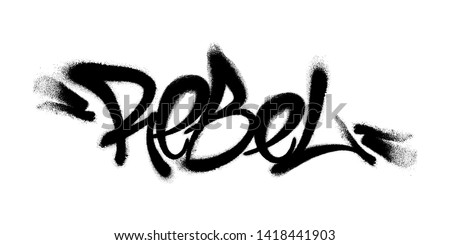
Free Font Graffiti Raseone | Premium Fonts
Strokes graffiti font family.
Font graffiti raseone. Fresh graffiti handstyle tagging presented in a rough paintbrush style. Free fonts for commercial use new fresh fonts most popular fonts alphabetic fonts largest font families trending fonts home tags graffiti hello you seem to have javascript turned off. More about this family. This is the free version of our wildbasics wildstyle graffiti typeface.
Burner graffiti font family. The 4 style in this layered type system can be stacked for combined outline fill and detail effects. Fresh paint graffiti font family. Glyphs from the fill outline fade detail styles layer combine in endless combinations to create complex burners that are consistent legible.
Characters can be mixed seamlessly with those of the main wildstyle font to add more variety. The descent family is a unique graffiti style layered type system consisting of a contextual style a classic style each with a base fill version an outline version. The burner font family is a layered type system of 155 wildstyle graffiti letters numbers symbols flourishes in each of 5 styles. Street artist graffiti font family.
Wild basics free graffiti font family. Raseone contains 5 styles and family package options. This font is an compatible with our full wildstyle font family. 2 unique graffiti alphabets numbers punctuation symbols arrows flourishes are all included.
Raseone was designed by matthew napolitano and published by graffiti fonts. Each of the 5 styles. This reverse italic graffiti script offers 191 characters in each of 4 styles. Created in 1999 raseone was one of the first graffiti style fonts ever created.
The graffiti fonts collection original digital typefaces designed by raseone custom graffiti collection for thqs homefront murals canvases artwork created in spray paint. Original fill outline fat 3d fade contains 238 characters. The raseone family was one our first typefaces. This font includes 174 characters letters numbers symbols punctuation streaks splats underlines more.
This family of fonts was built to emulate fast strokes with a wide paint brush or chisel tip marker to retain a realistic look even at very large sizes with a minimal amount of paths compared to many fonts with this level of detail. Regular streak drip outline styles are included in the set. Based on a signature category of wildstyles by graffiti fonts lead designer raseone this family was designed to be rotated 90 degrees clockwise so that the text reads in a. 2 alphabets of thick bold legible letters convey fast organic motion with detailed streaks unique letter styles.